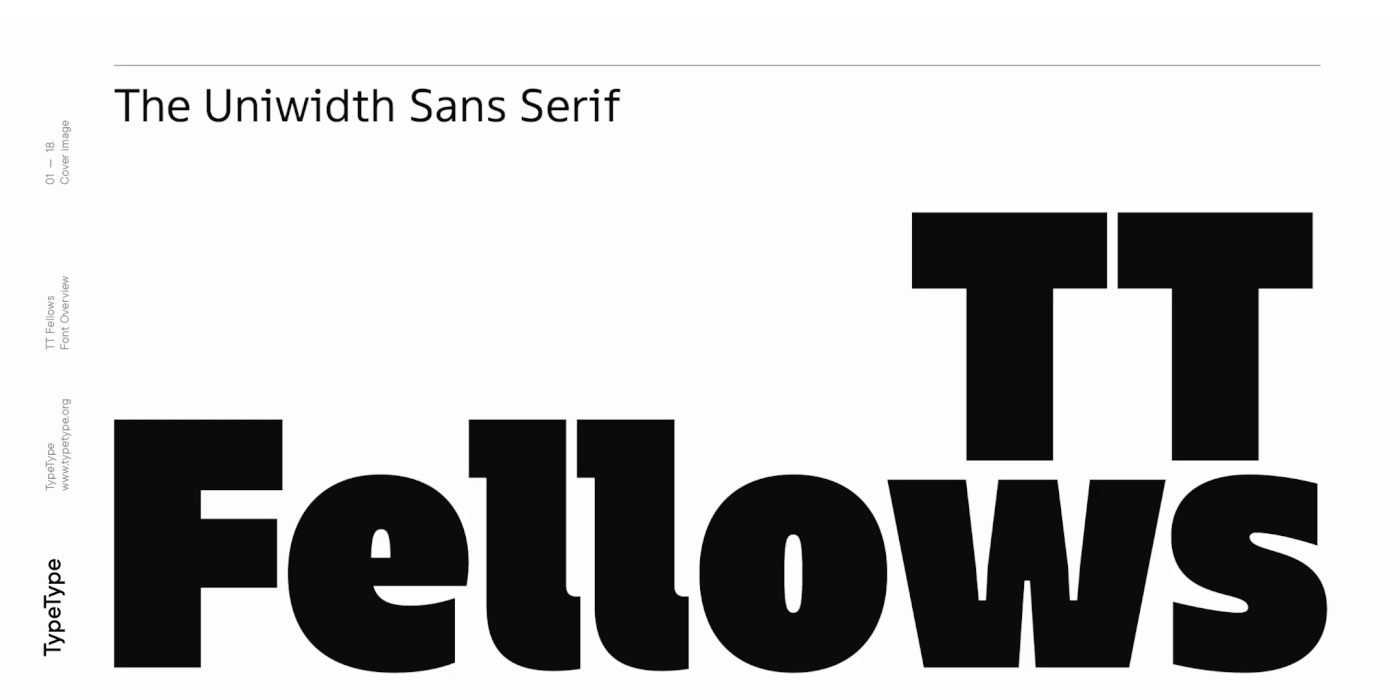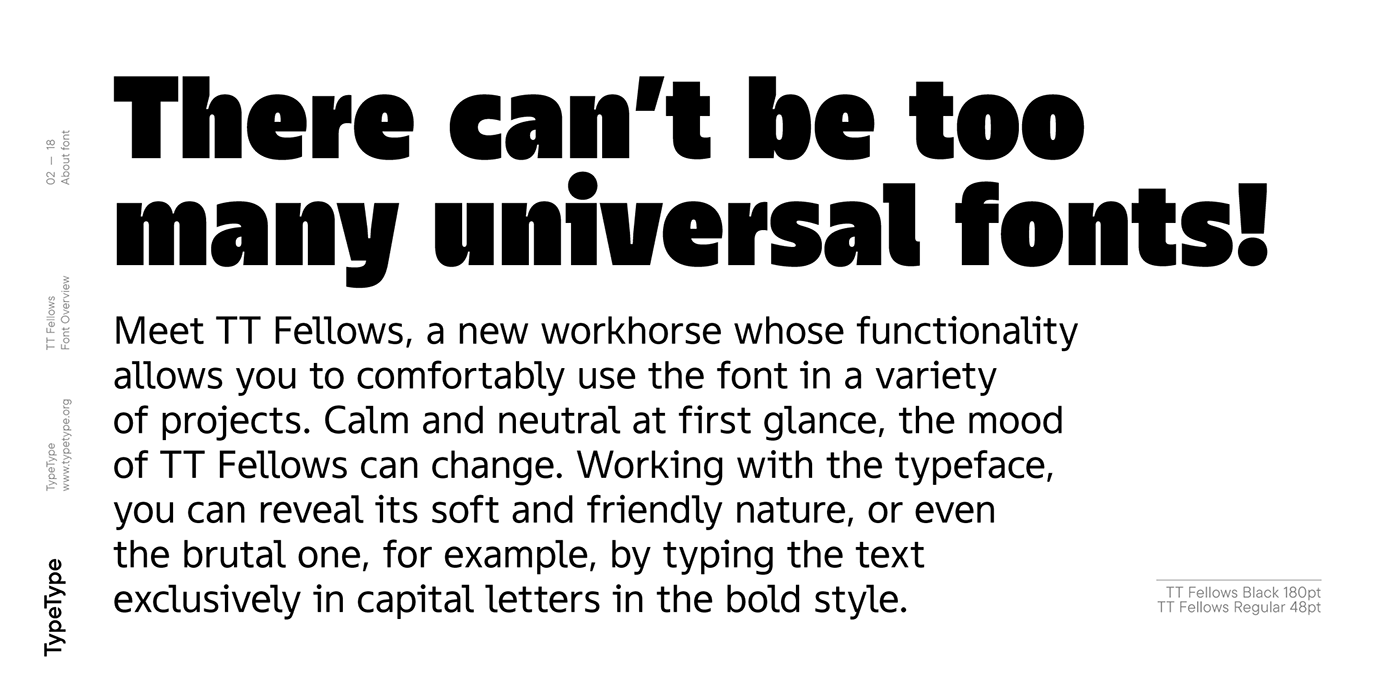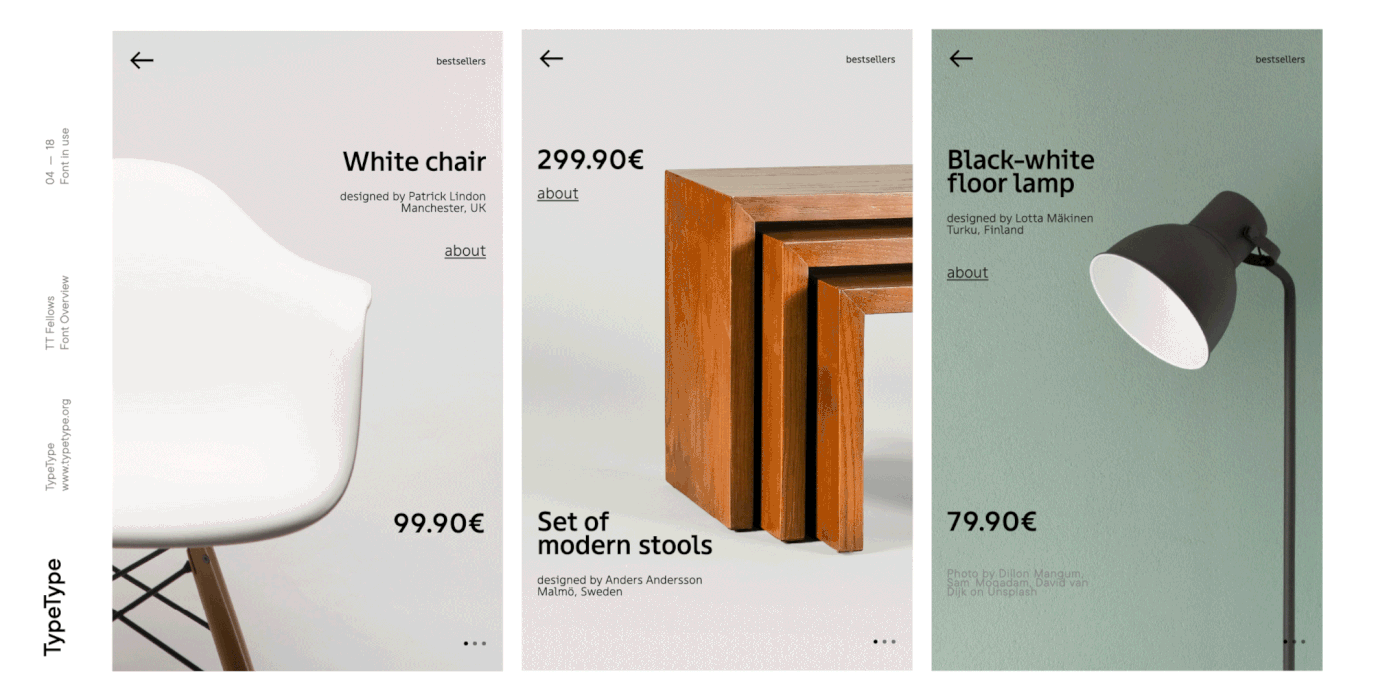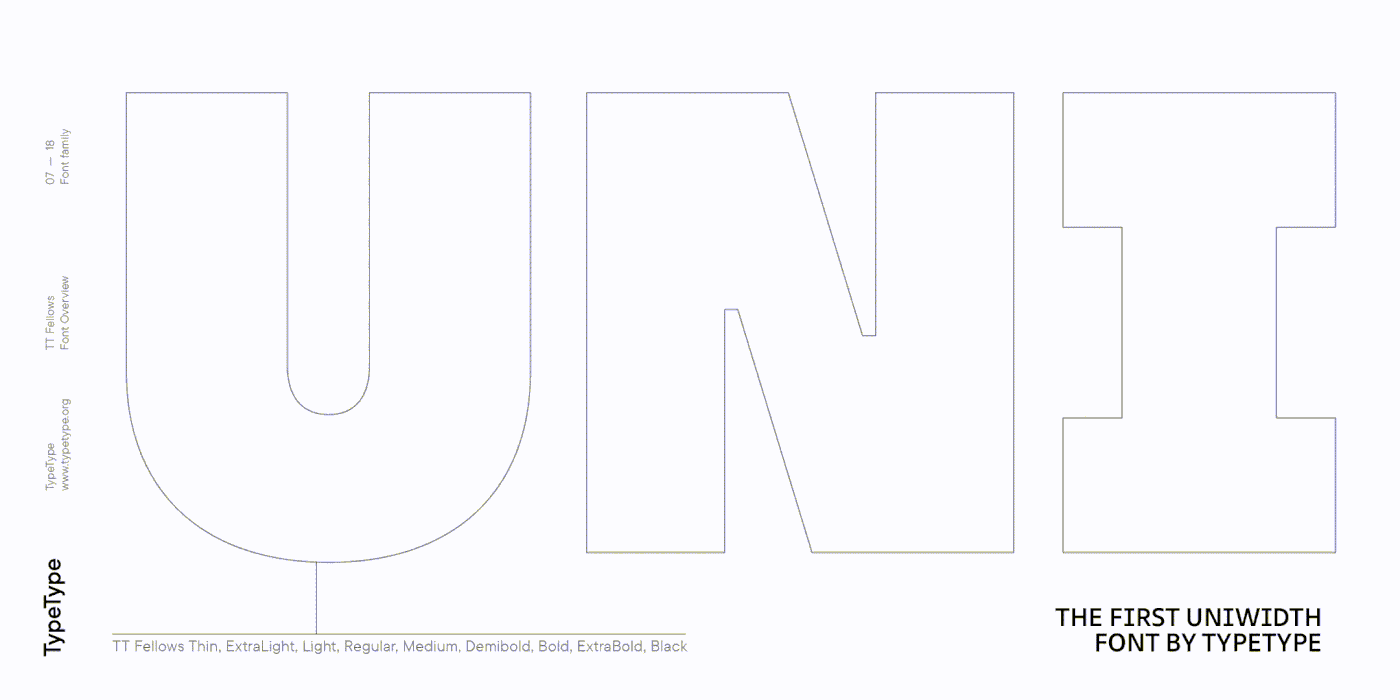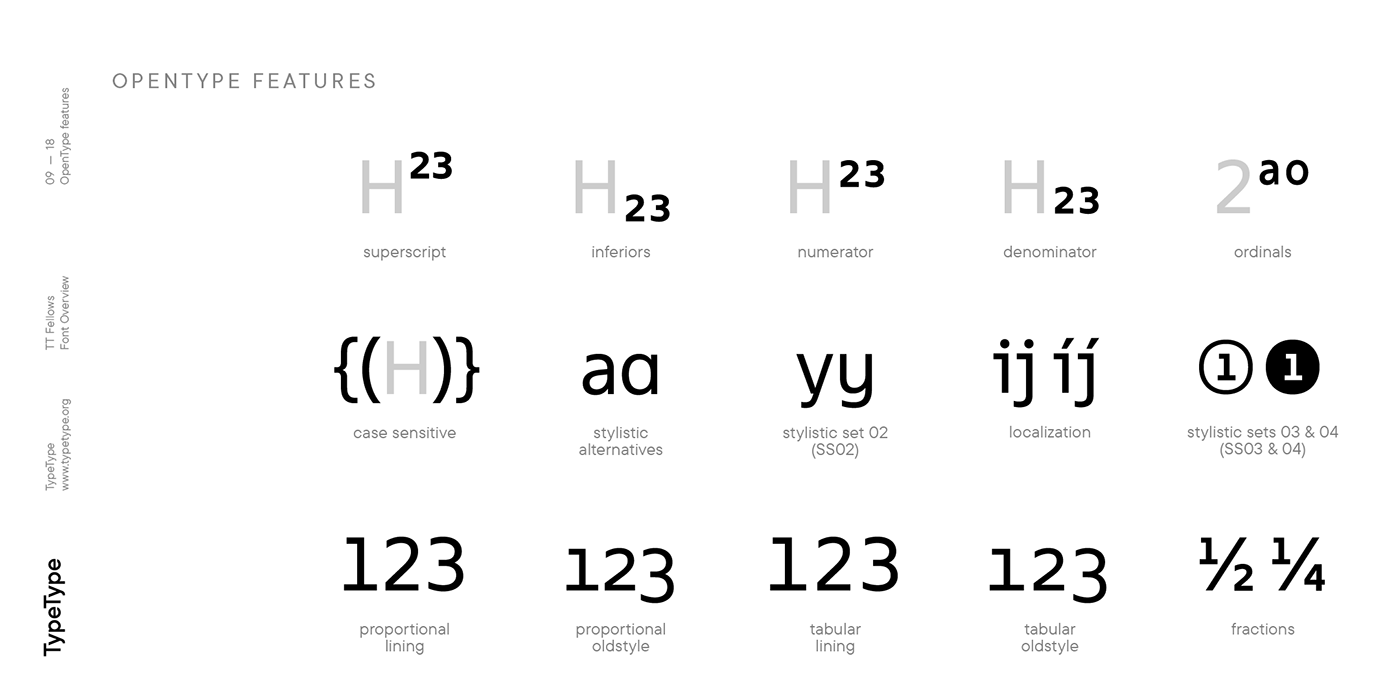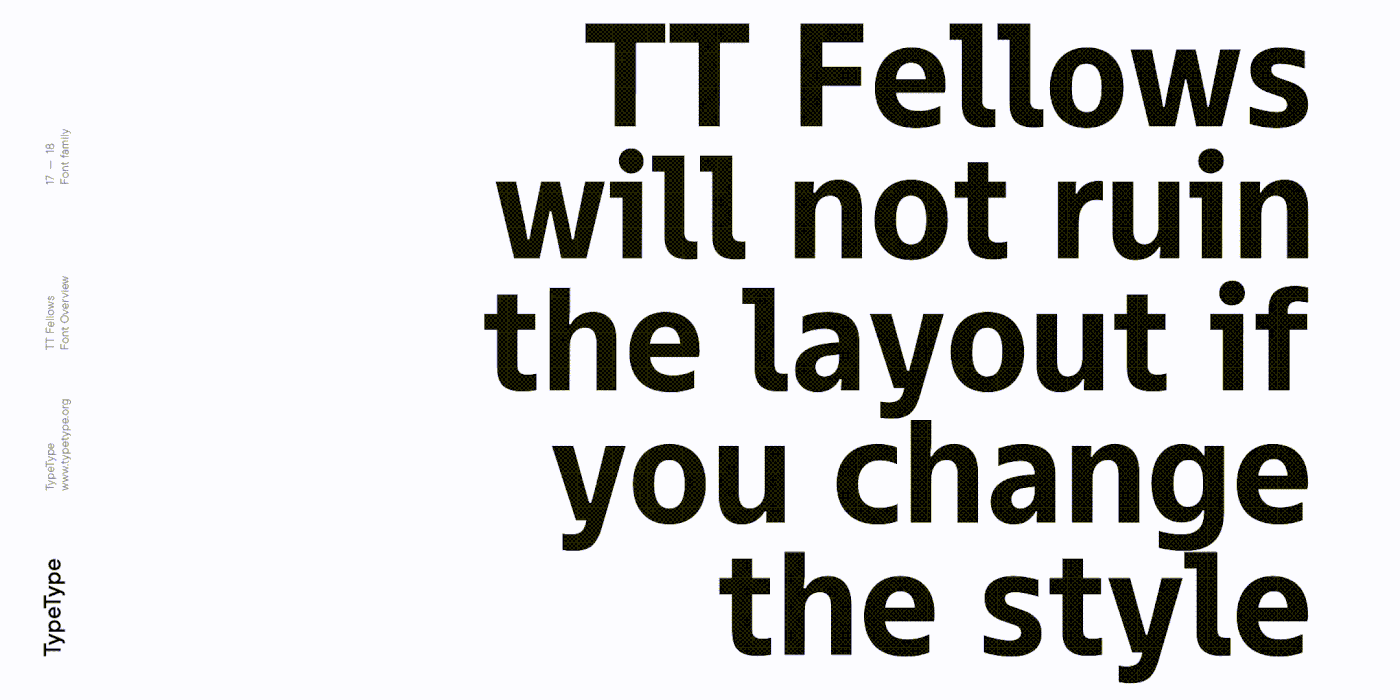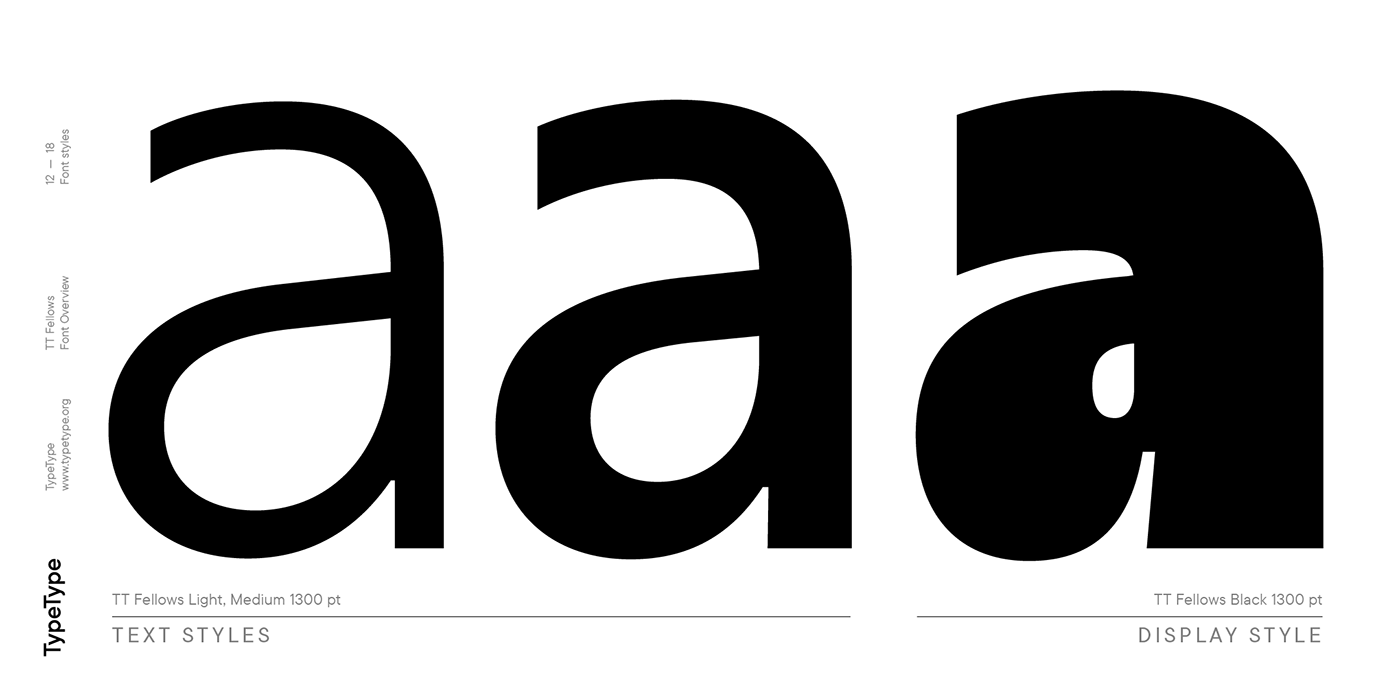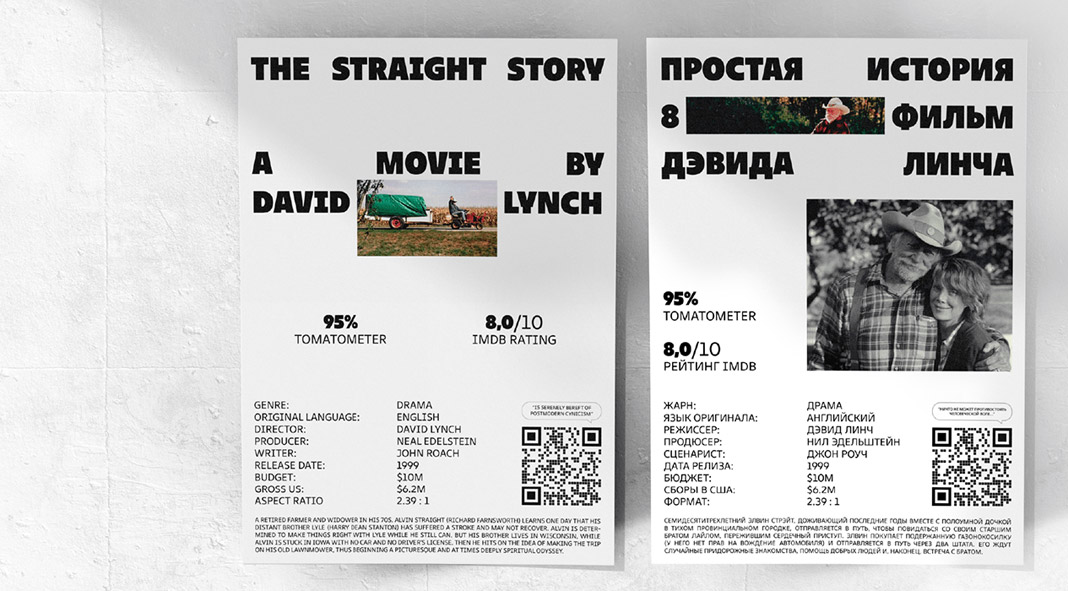
TT Fellows, a new workhorse font family by foundry TypeType.
Released in the early days of 2022, the TT Fellows font family is equipped with 19 styles including 9 uprights, 9 italics, and one variable font. Each style contains over 700 glyphs. Furthermore, this universal font family by foundry TypeType comes with 26 useful OpenType features such as alternate characters, fractions, tabular characters, ligatures, case versions of punctuation, and localized versions of characters for different languages.